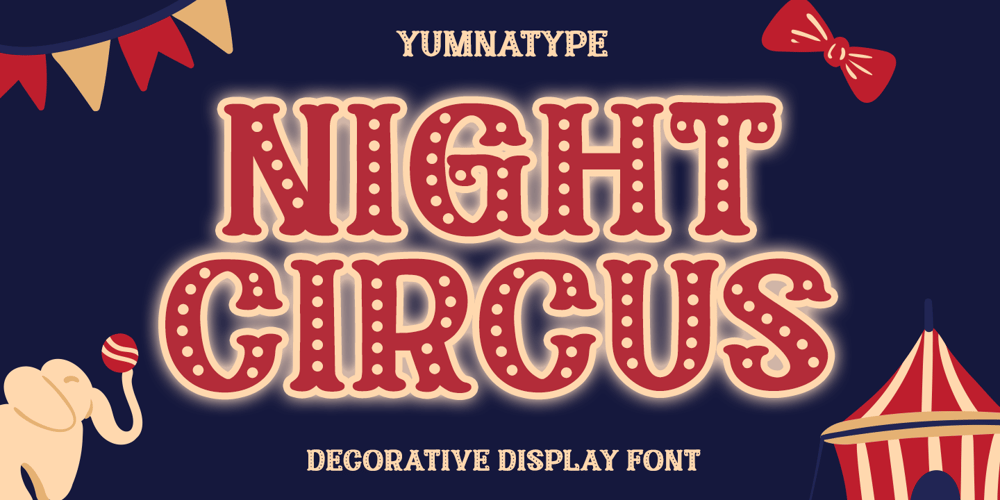
Night Circus Font Family was designed by Donis Miftahudin and published by Yumna Type. Night Circus contains 1 styles and family package options. Night Circus is a capitalized display font in a circus theme having unique, interesting designs with big, prominent letter sizes to catch attention. All of its letters are peculiarly designed in bright colors and many decorative circus elements. The power-expressing big, thick letters are perfect to use in power, boldness message-delivering designs.The advantages of Night Circus font, which provides a clipart in line with the theme, are the abilities to produce unique, charming nuances to your designs and to make your products more interesting which increases the products’ attractiveness. You can use it in big text sizes to be greatly legible and enjoy the available features here.Features: Multilingual Supports PUA Encoded Numerals and Punctuations Night Circus fits best for various design projects, such as brandings, headings, magazine covers, quotes, printed products, merchandise, social media, etc. Find out more ways to use this font by taking a look at the font preview.Thanks for purchasing our fonts. Hopefully, you have a great time using our font. Feel free to contact us anytime for further information or when you have trouble with the font. Thanks a lot and happy designing.